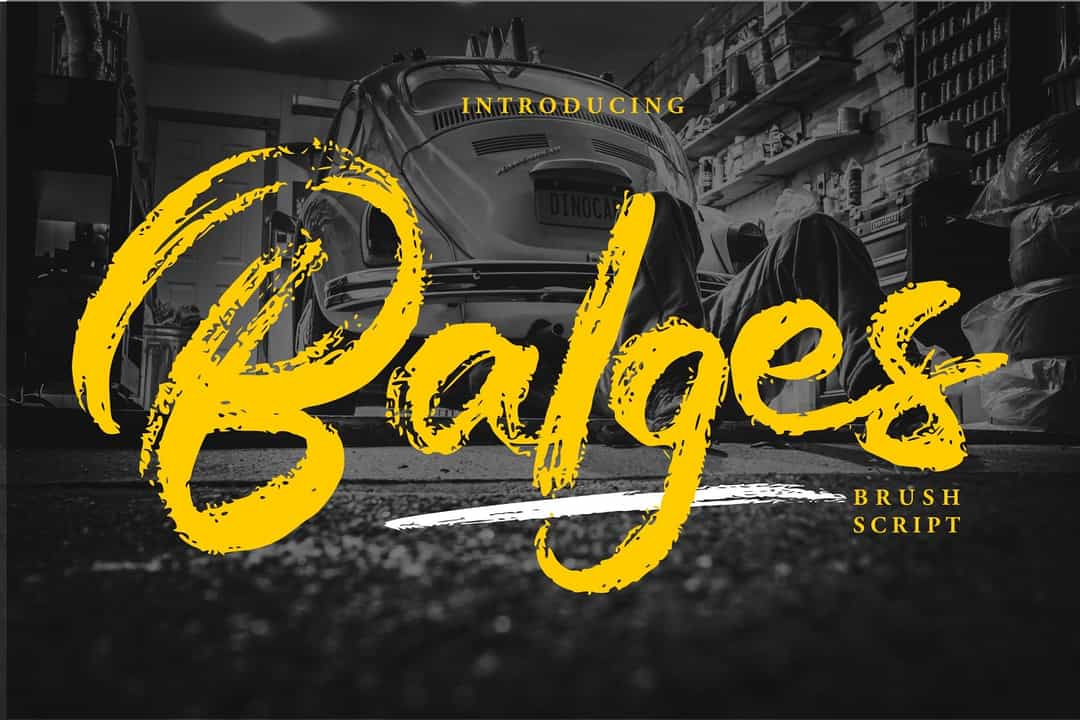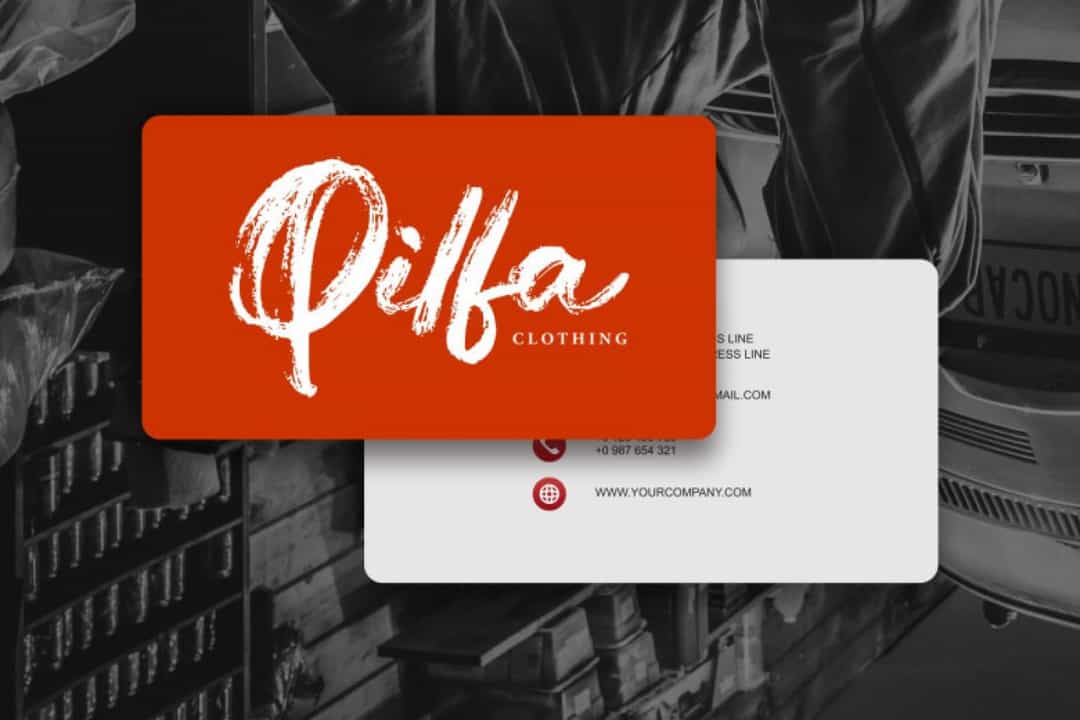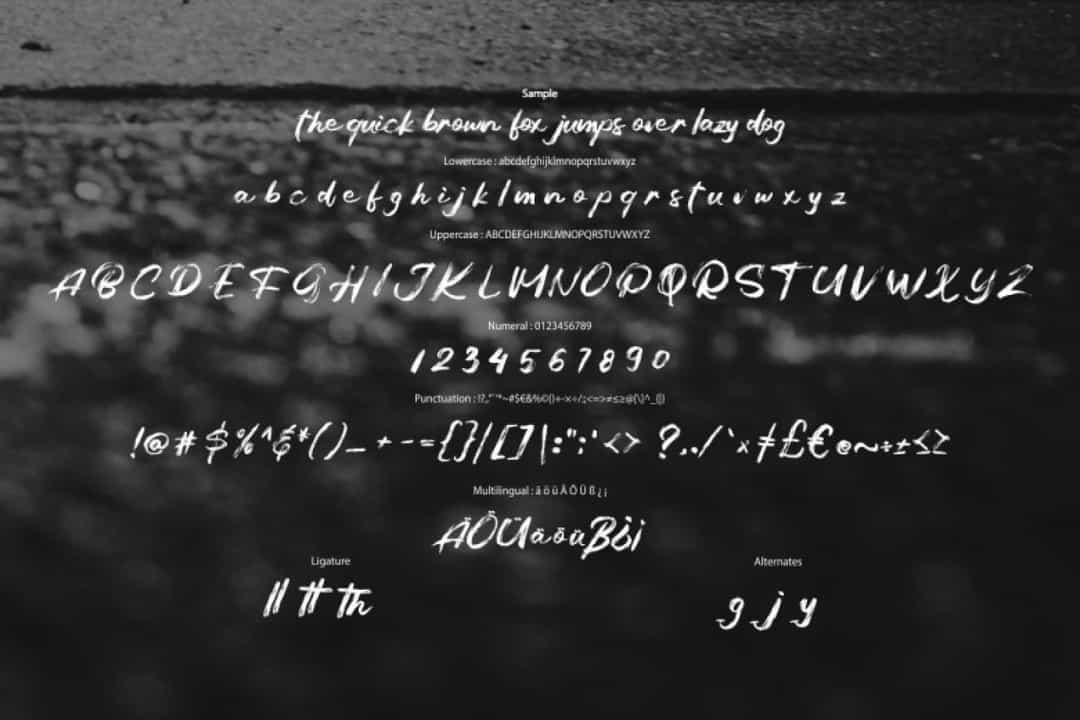
Balges Font is a tool that allows you to easily and quickly create brush scripts using Pentel Brush Sign. Balges Brush also has two variants of the lowercase letters to make the font diverse and natural, and has a rich choice of styli’s that help to make designs and texts more interesting.